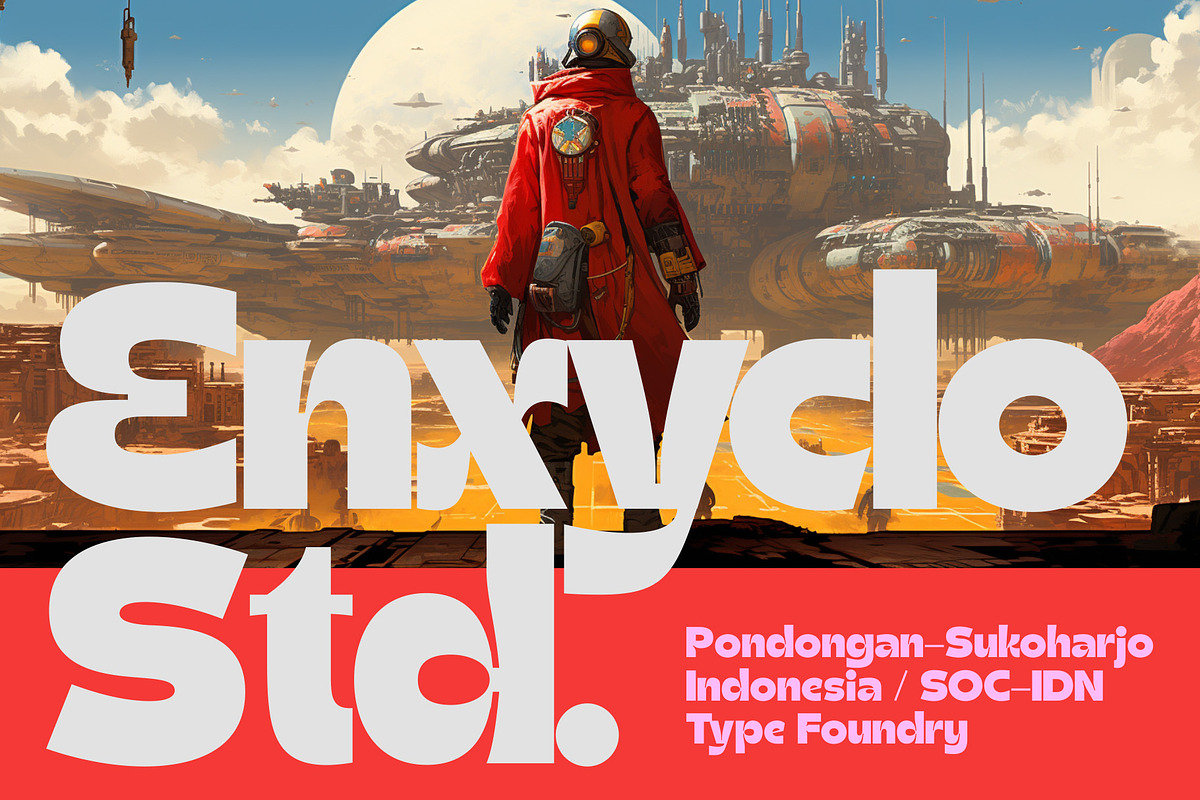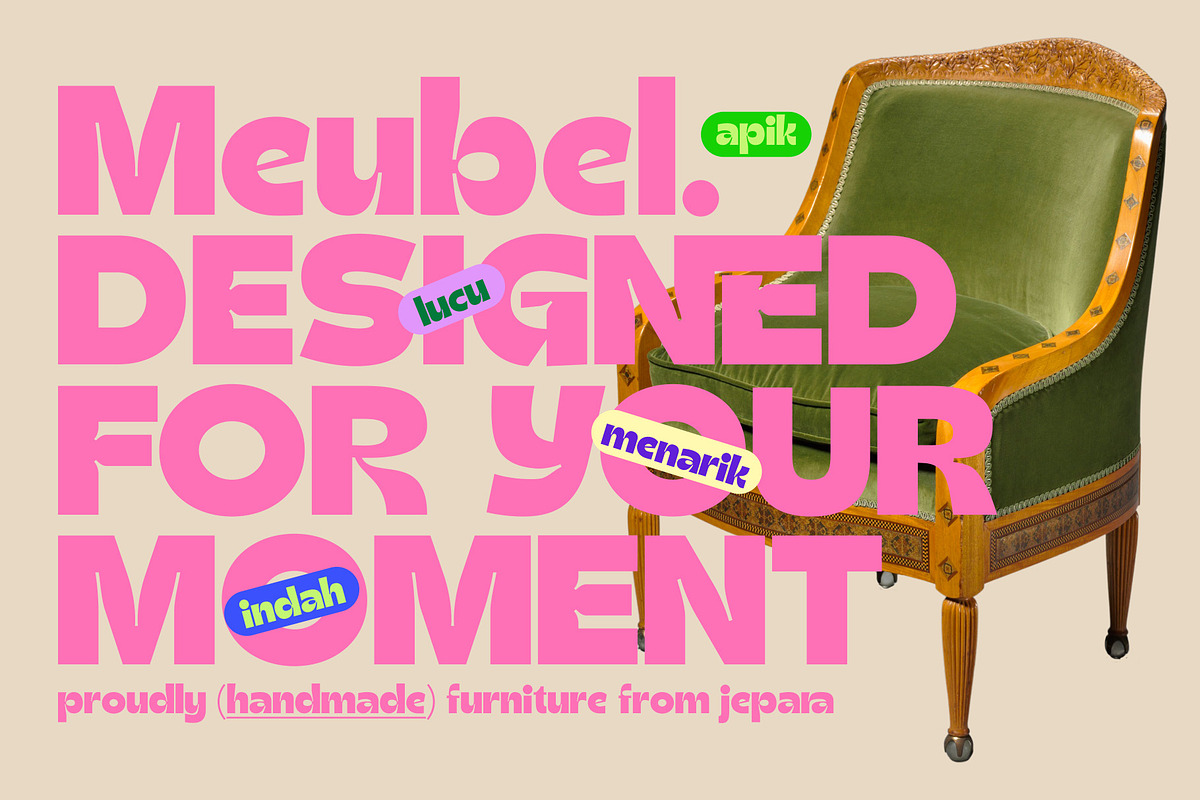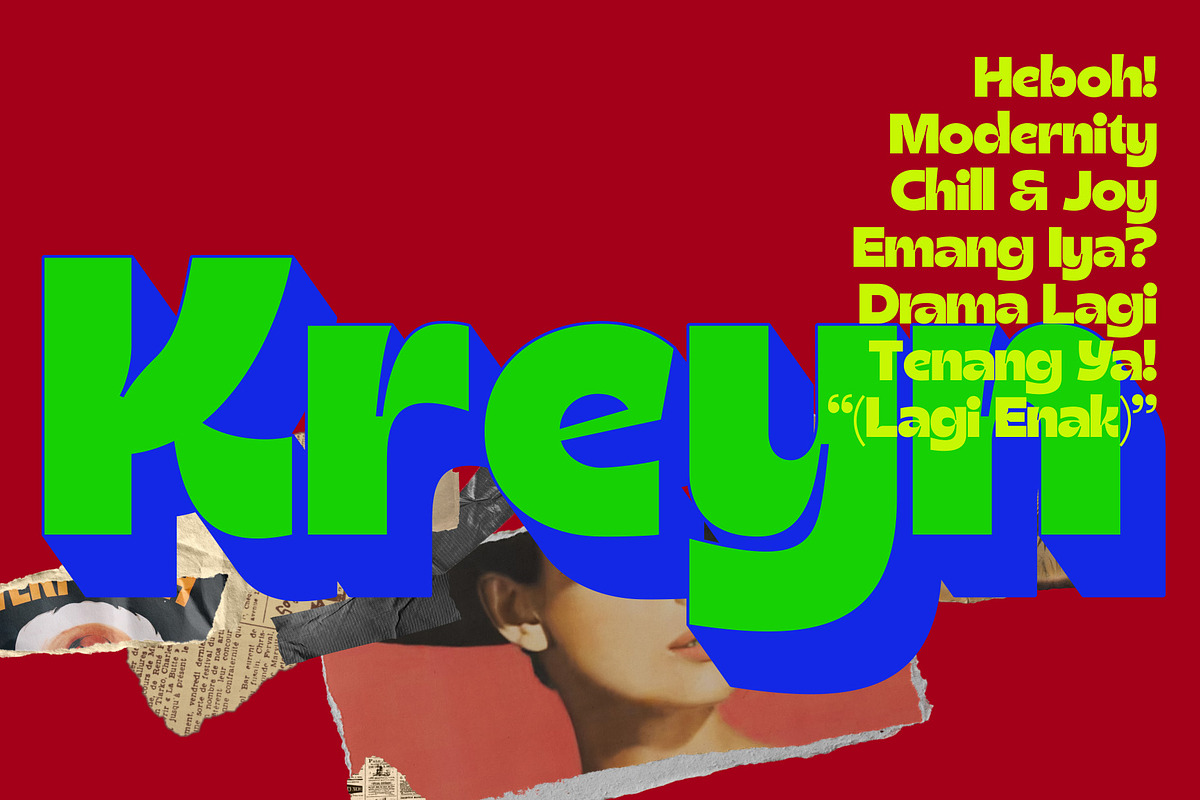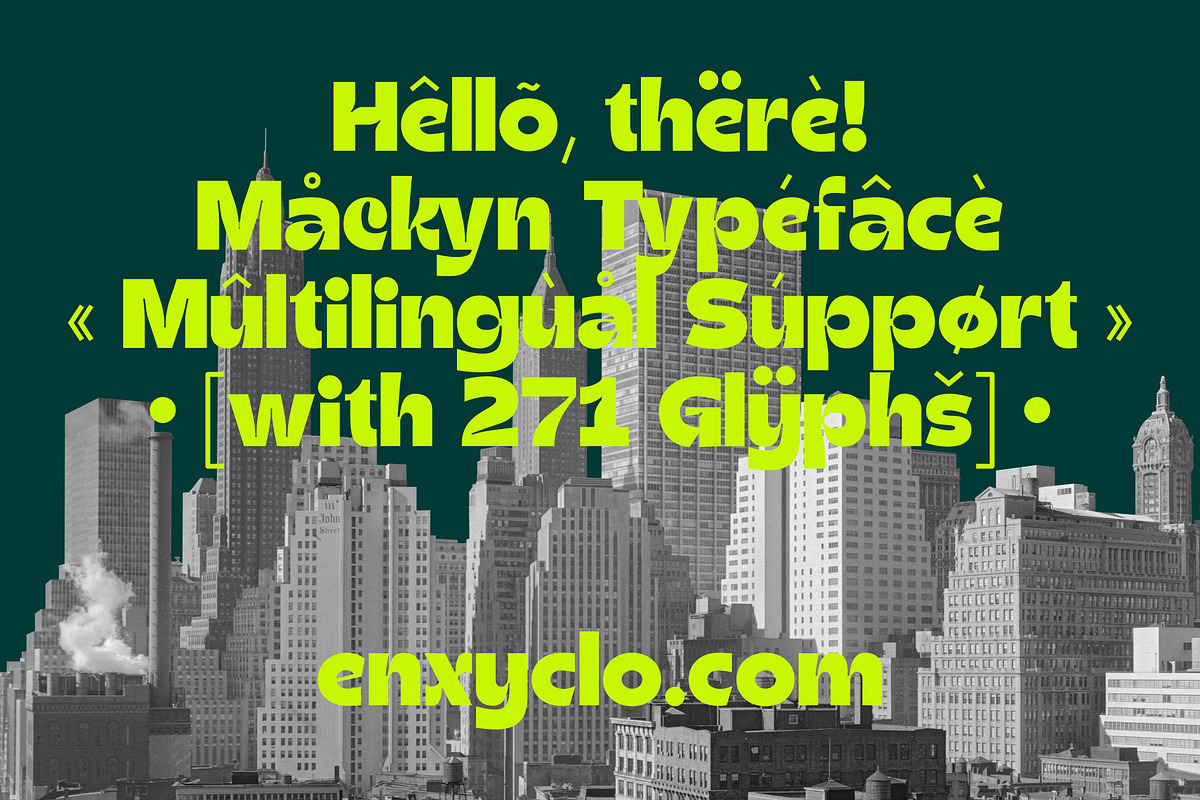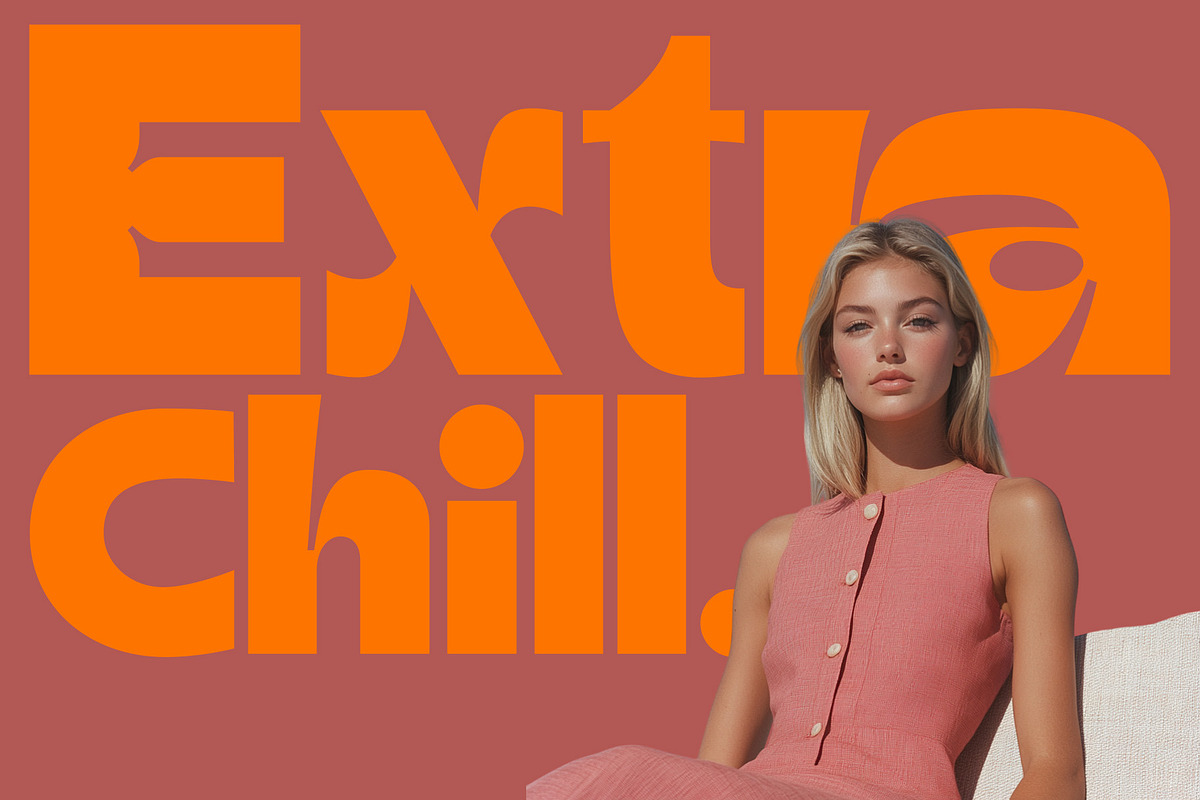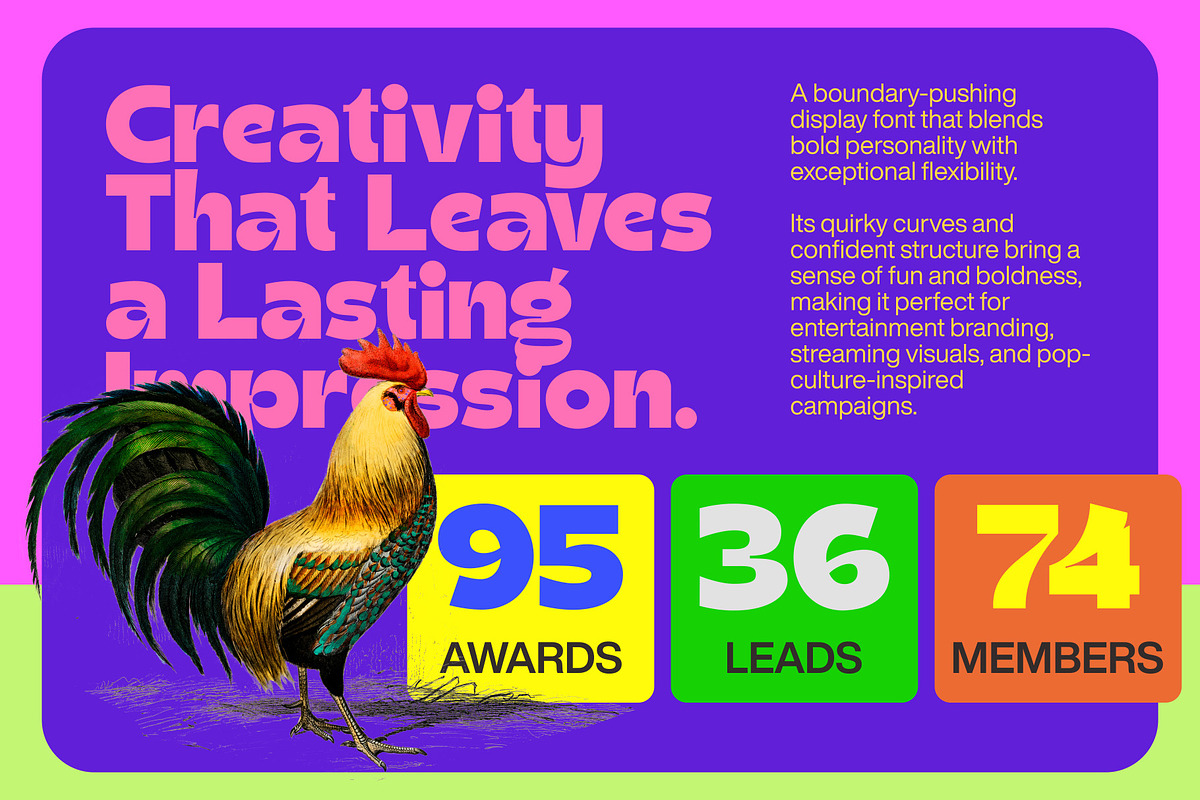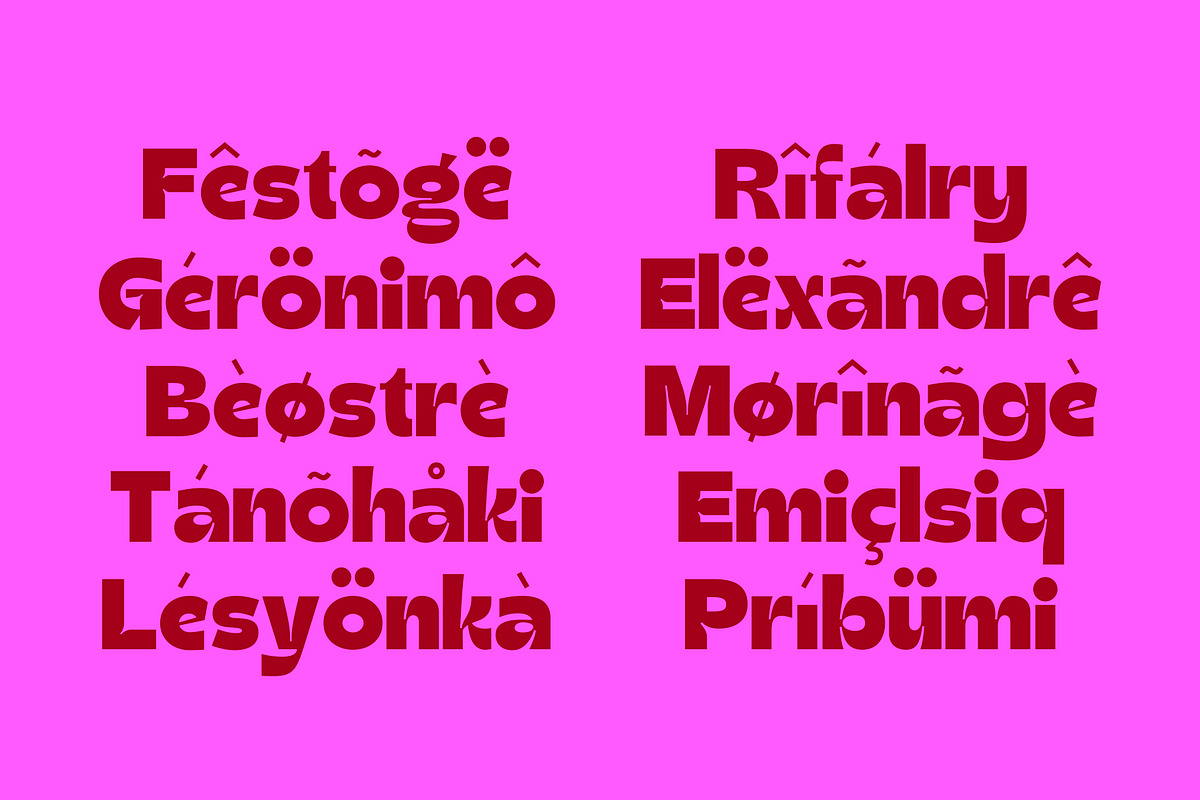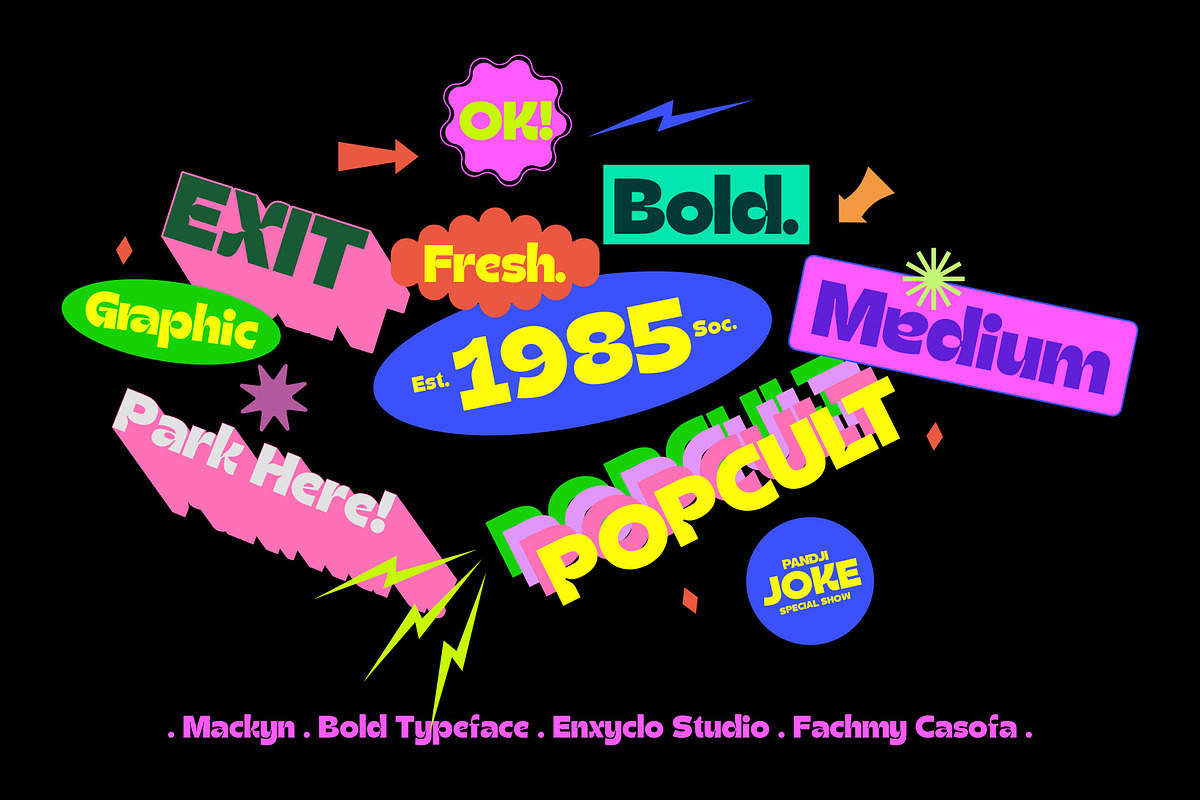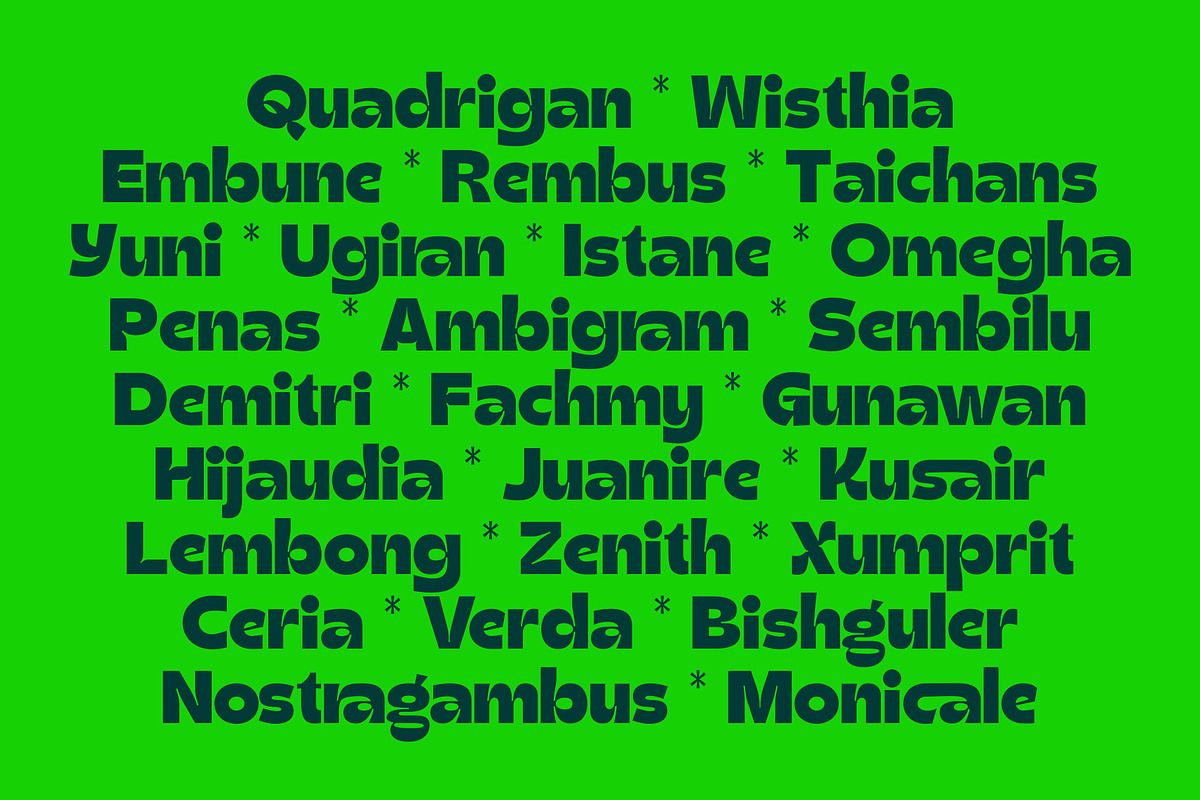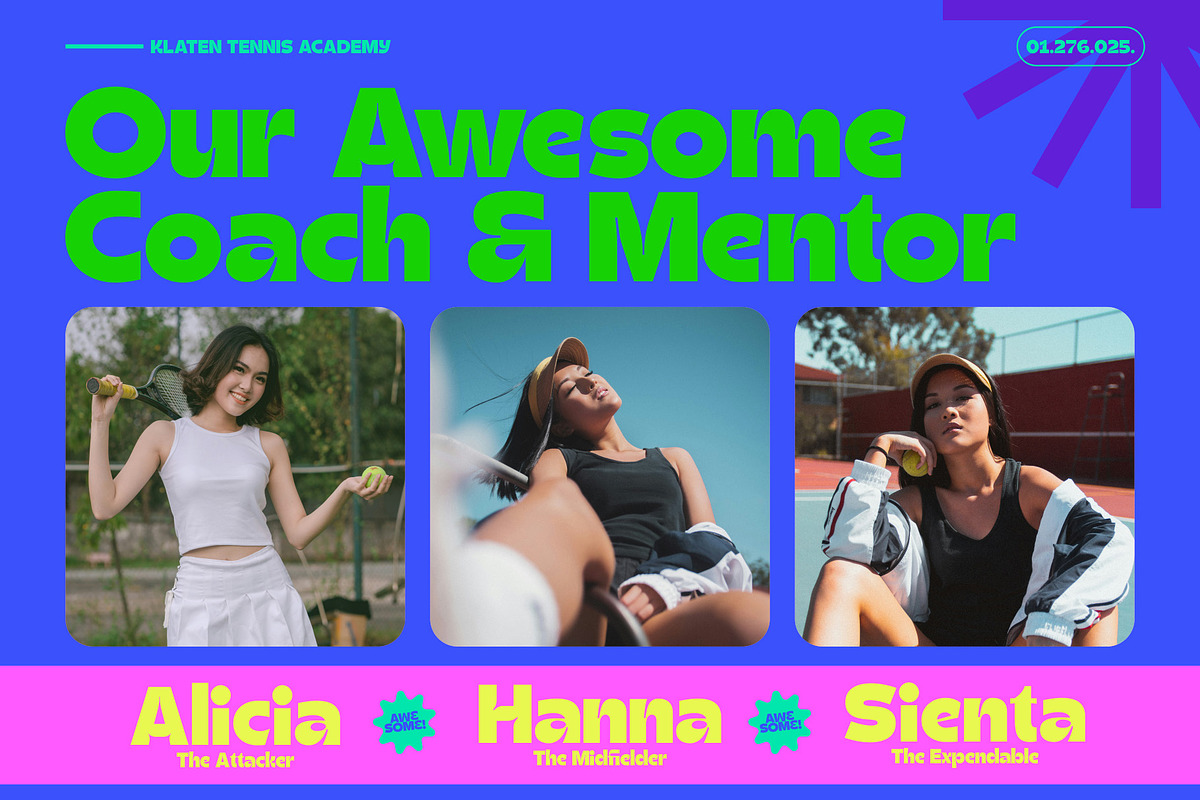
Mackyn - Bold Modern Font
Mackyn is a modern, bold display font crafted to make your logos and headlines truly stand out. This unique typeface combines strong geometric shapes with stylish curves, delivering a fresh and eye-catching look that demands attention. Perfect for creating impactful branding and visual statements, Mackyn brings a contemporary edge to any creative project. Designed with versatility in mind, Mackyn is ideal for bold logo designs, display typography, and striking headlines. Whether you need a font that conveys confidence, style, or innovation, Mackyn offers a sleek and powerful choice that elevates your brand identity to the next level.
Feature:
- Modern, bold display typeface
- Includes uppercase, lowercase, numerals, punctuation, and symbols
- Alternates and stylistic sets for creative customization
- Ligatures for smooth and cohesive typography
- Multilingual support for global reach
- 271 glyphs for versatile design applications
- Bold logo and brand identity
- Impactful headlines and posters
- Modern editorial designs
- Packaging and advertising
- Visual branding for startups and tech companies
- Creative projects requiring a fresh and powerful typeface